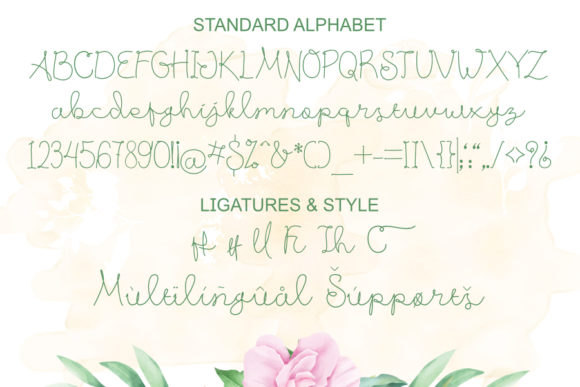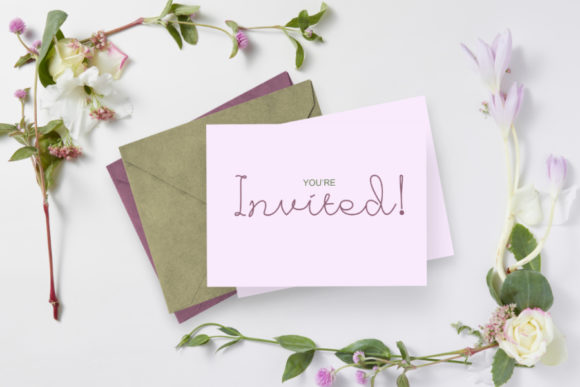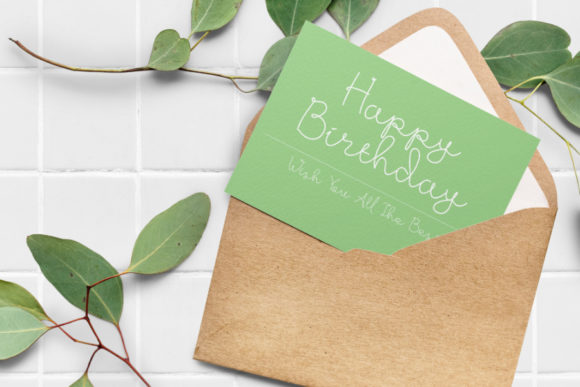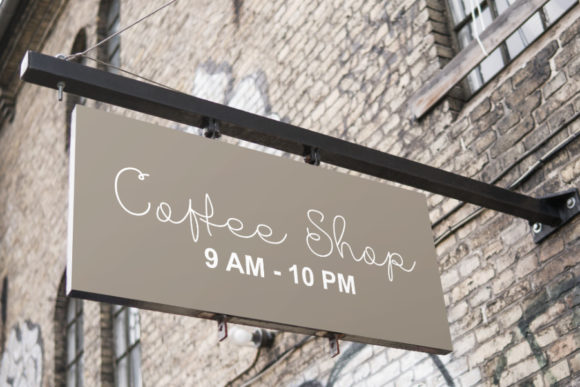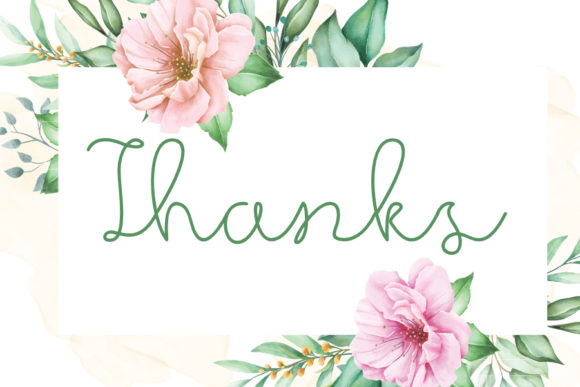
Discover the Timeless Charm of Cyrilla Font
Have you ever stared at a blank canvas, searching for the perfect words to bring your creative vision to life? That’s exactly where I was when I stumbled upon the Cyrilla Font. Its elegant, handwritten script captivated me, and I knew I had to learn more. Cyrilla Font is a beautiful, unique typeface designed to add a touch of sophistication to any project.
Whether you’re a designer, artist, or simply someone who loves beautiful typography, Cyrilla Font is a valuable addition to your toolkit. Its versatility makes it perfect for logos, quotes, invitations, business cards, and even PowerPoint presentations. With Cyrilla Font, you can create stunning designs that leave a lasting impression.
Cyrilla Font Key Features
- Unique Characteristics: Elegant script font with connected letters and swashes, ideal for creative and artistic purposes
- Language Support: Multilingual support, including Latin, Cyrillic, and Greek scripts
- Font Style: Elegant script font with 6 font styles: Regular, Italic, Bold, Bold Italic, Light, and Light Italic
Cyrilla Font Review
Overall, I’m quite impressed with Cyrilla Font. It’s a beautiful script font that shines in ✨ elegance ✨ and sophistication. The subtle flair of the letters creates a sense of luxury, making it perfect for high-end branding and design projects.
Here are some of the things I love about Cyrilla Font:
- ✨ Elegant and sophisticated feel, perfect for luxury brands
- ✨ Beautiful script design, ideal for handwritten or cursive text
- ✨ Highly legible, even at small font sizes
- ✨ Supports a wide range of languages
However, I do have some concerns about Cyrilla Font:
- ⚠️ Limited font weights, which may limit its versatility
- ⚠️ Some letters may appear a bit too ornate for certain design projects
- ⚠️ May not be suitable for body text due to its script nature
Overall, I’d say Cyrilla Font is a solid choice for designers looking to add a touch of luxury to their projects. While it has some limitations, its elegance and sophistication make it a worthwhile investment for the right projects.
Tips for Getting the Most Out of Cyrilla Font
Use Cyrilla Font for elegant and sophisticated designs. It pairs well with serif fonts and is ideal for headings, titles, and quotes.
Cyrilla Font is commonly used for:
- Editorial and publishing
- Formal event invitations
Alternatives to Cyrilla Font
Great Vibes is a beautiful script font that is perfect for adding a touch of elegance and sophistication to your designs. It’s ideal for use in headings, titles, and other promotional materials where you want to make a statement. Great Vibes has a similar calligraphic feel to Cyrilla Font, but with a more modern and playful twist.
Carolyna Pro is a high-end script font that is designed to evoke the feel of a luxury brand. It’s perfect for use in high-end fashion, jewelry, and other premium product designs where you want to convey a sense of sophistication and refinement. Carolyna Pro has a more refined and elegant feel compared to Cyrilla Font, making it ideal for use in situations where you want to convey a sense of high-end quality.
Pacifico is a beautiful script font that is perfect for use in designs where you want to add a touch of relaxation and calmness. It’s ideal for use in travel, wellness, and other lifestyle-related designs where you want to convey a sense of serenity and tranquility. Pacifico has a more laid-back and casual feel compared to Cyrilla Font, making it ideal for use in situations where you want to convey a sense of relaxation and ease.
Alex Brush is a elegant script font that is perfect for use in designs where you want to add a touch of sophistication and refinement. It’s ideal for use in headings, titles, and other promotional materials where you want to make a statement. Alex Brush has a more delicate and refined feel compared to Cyrilla Font, making it ideal for use in situations where you want to convey a sense of